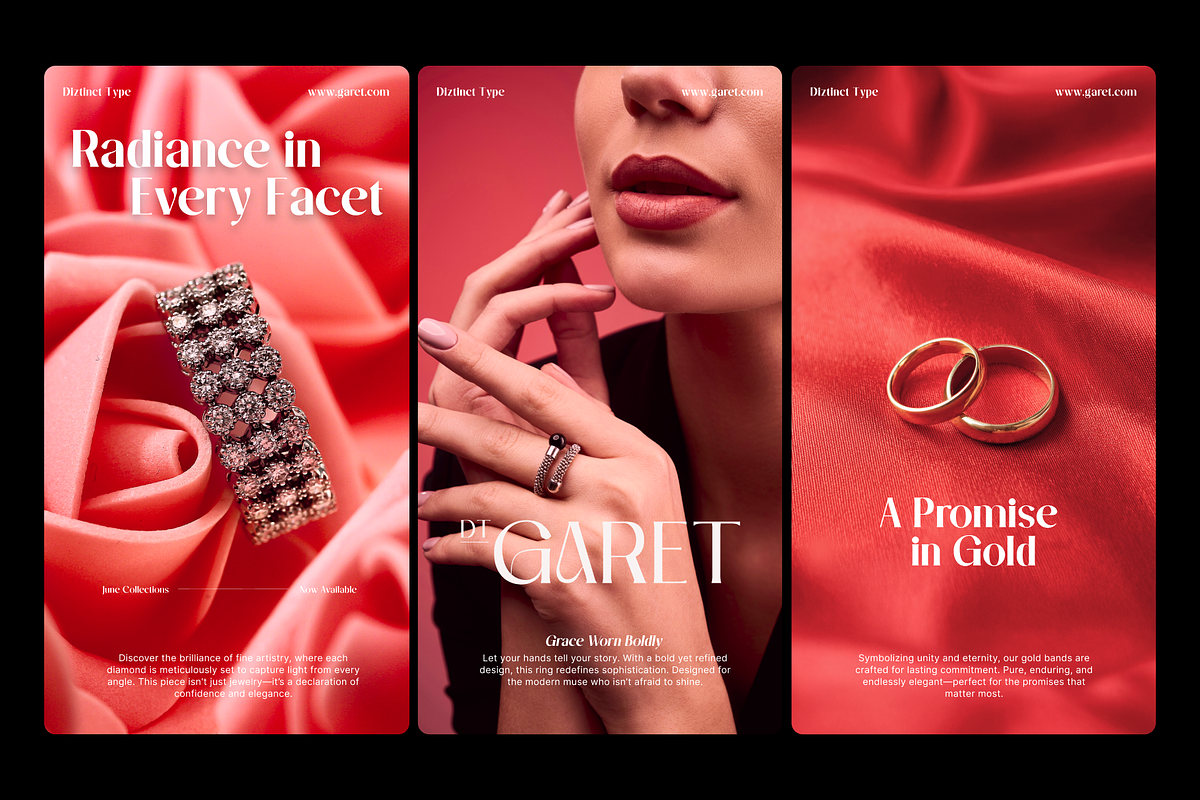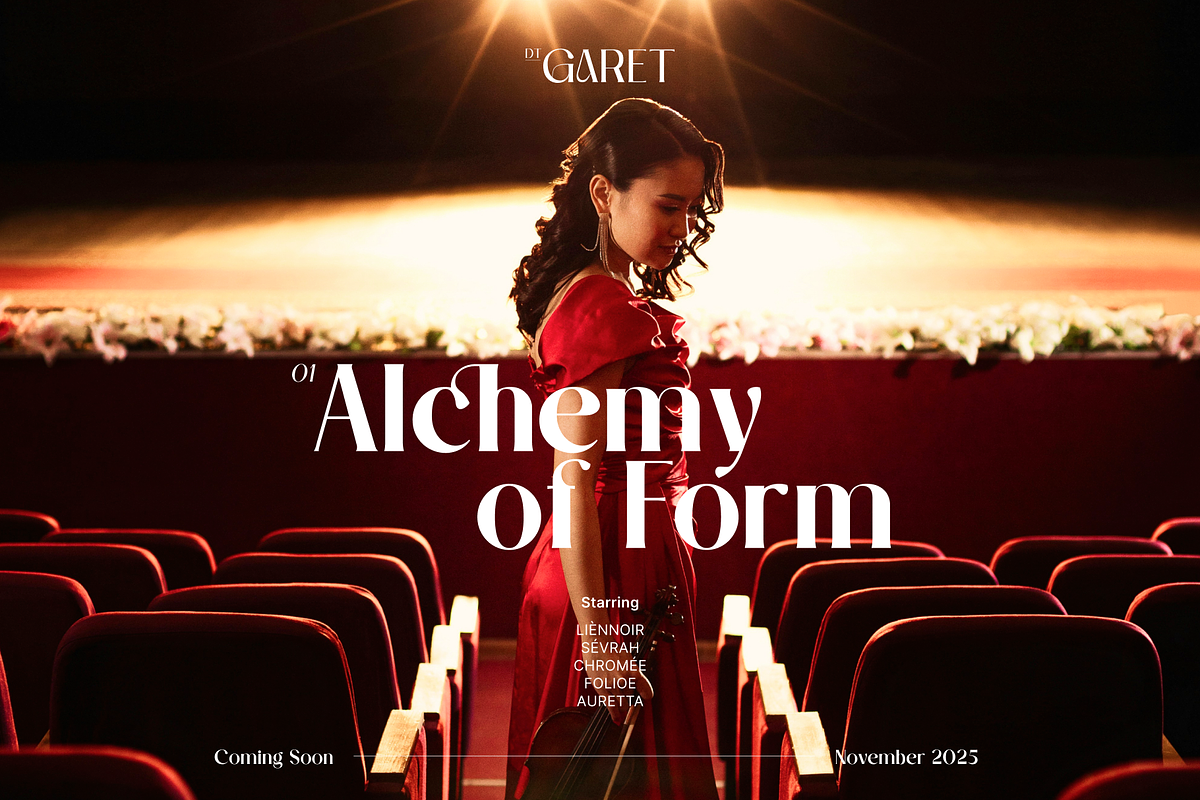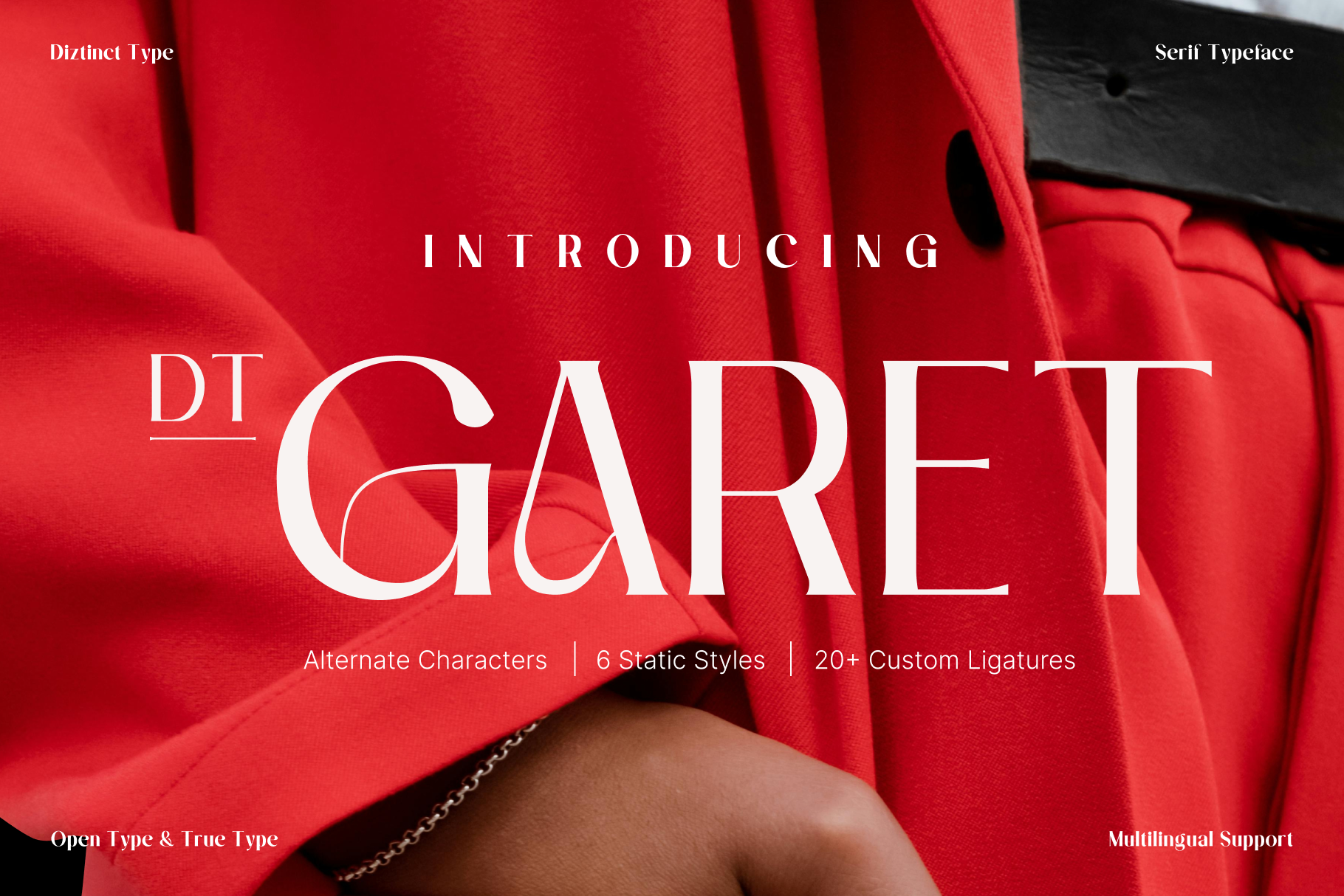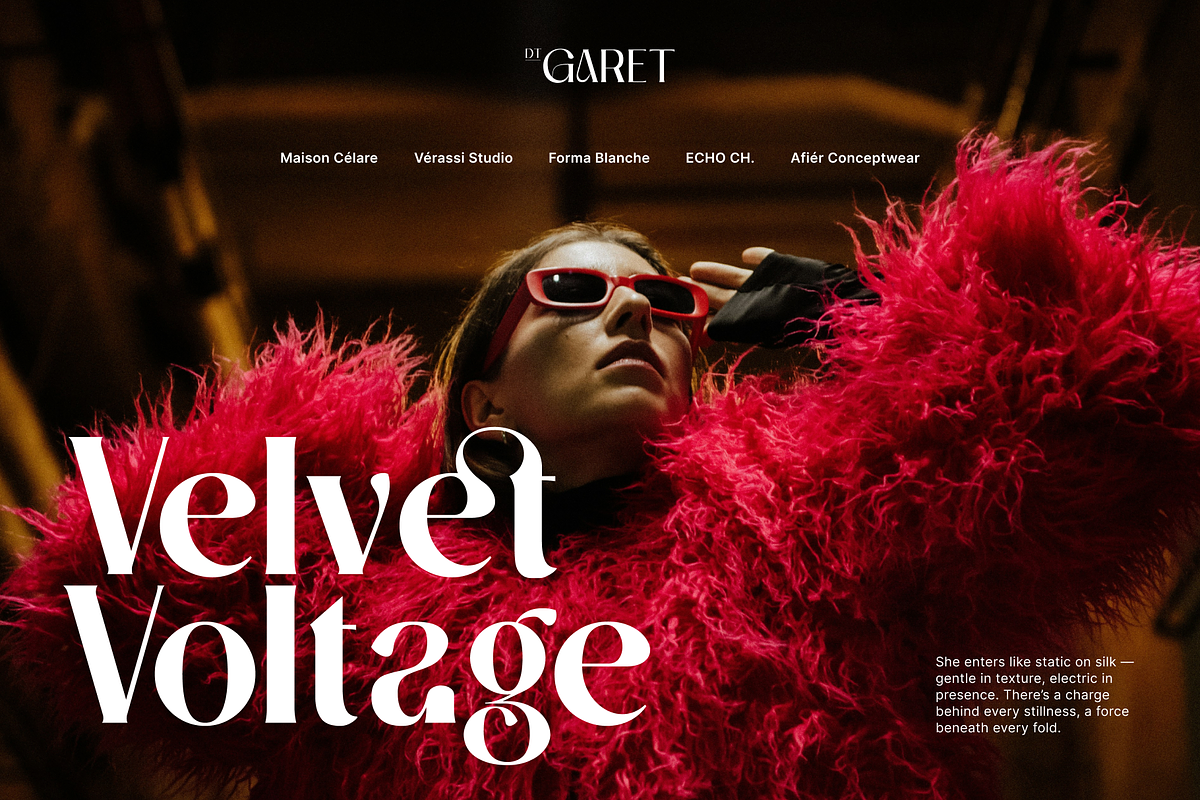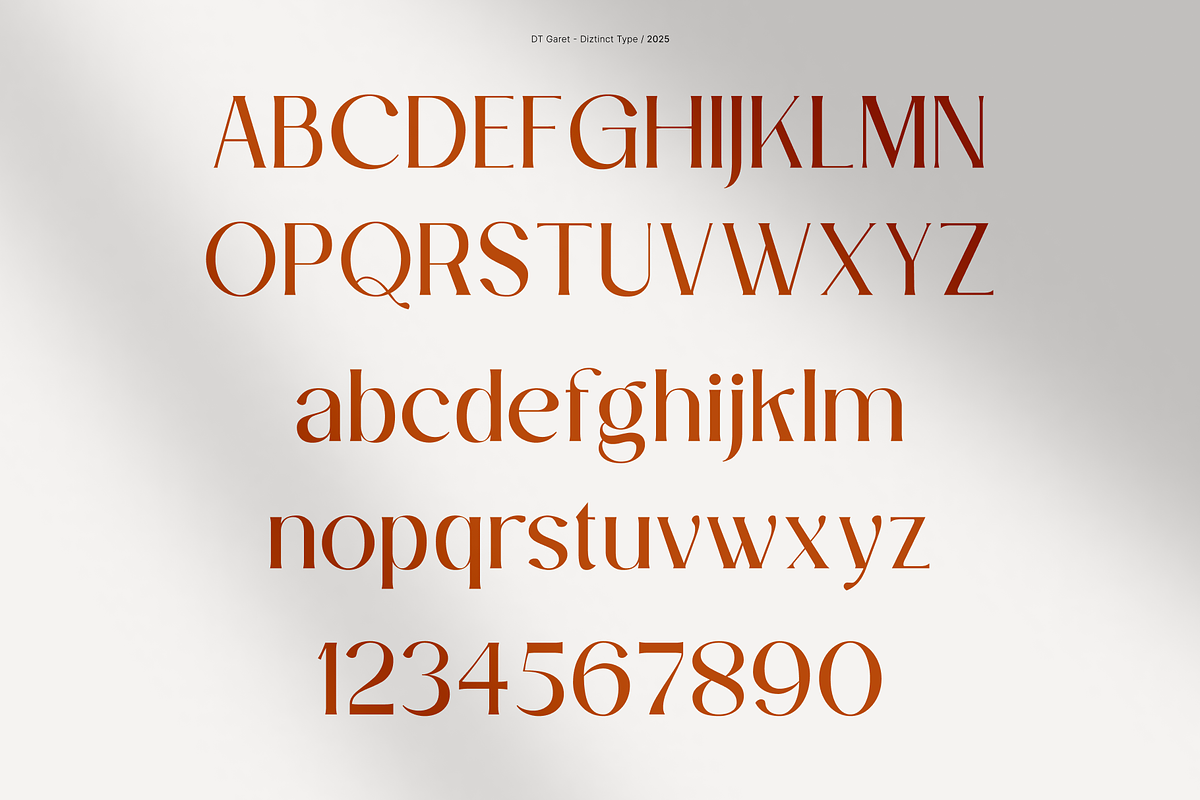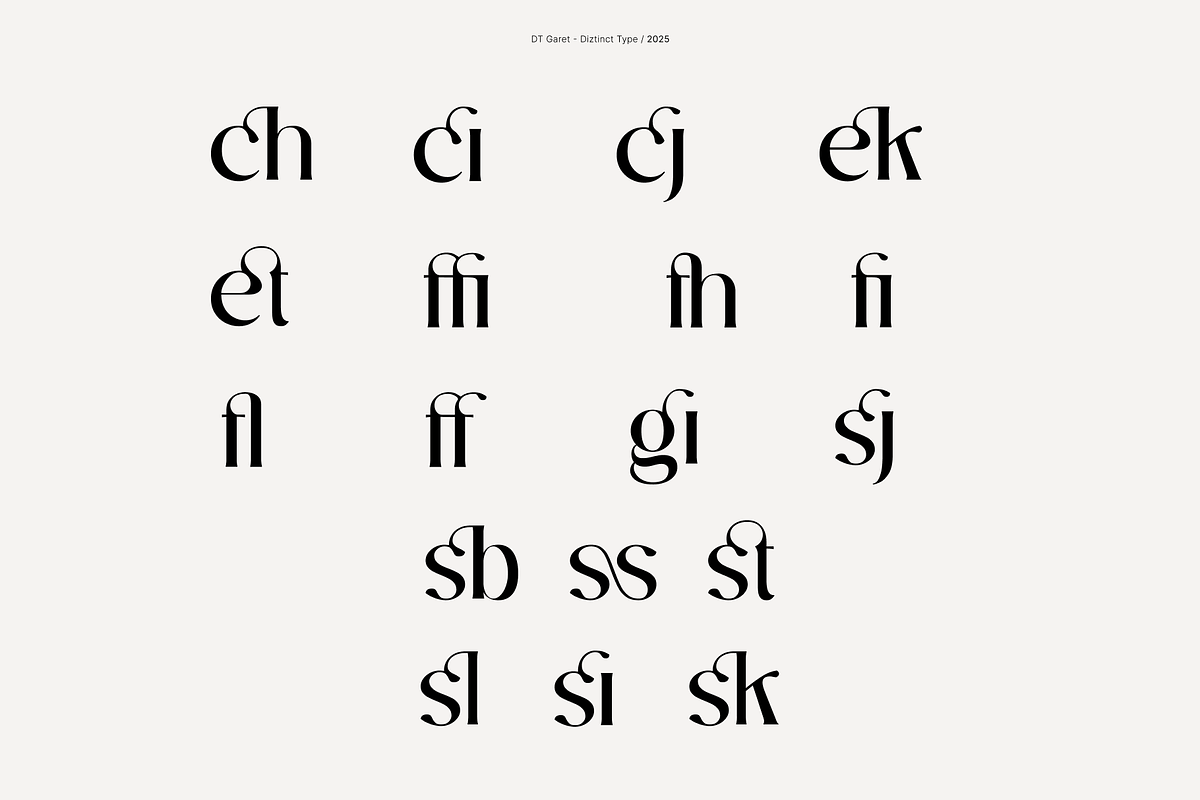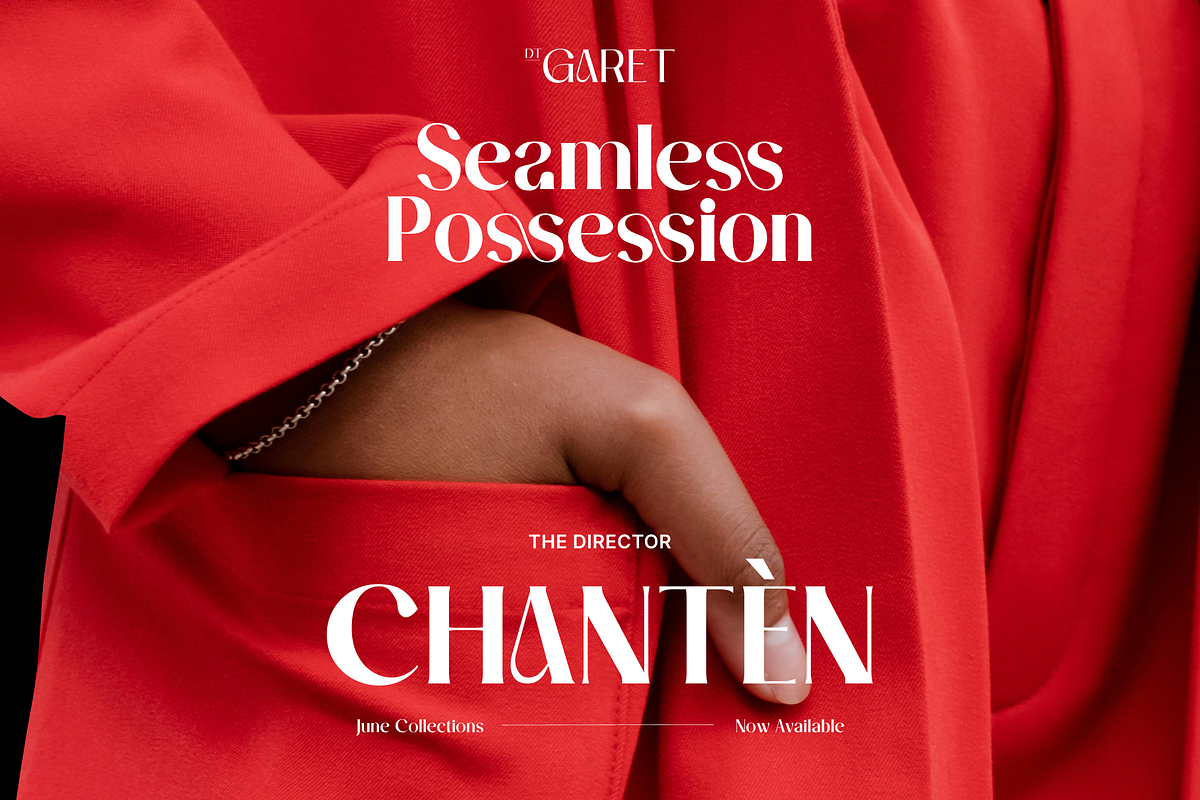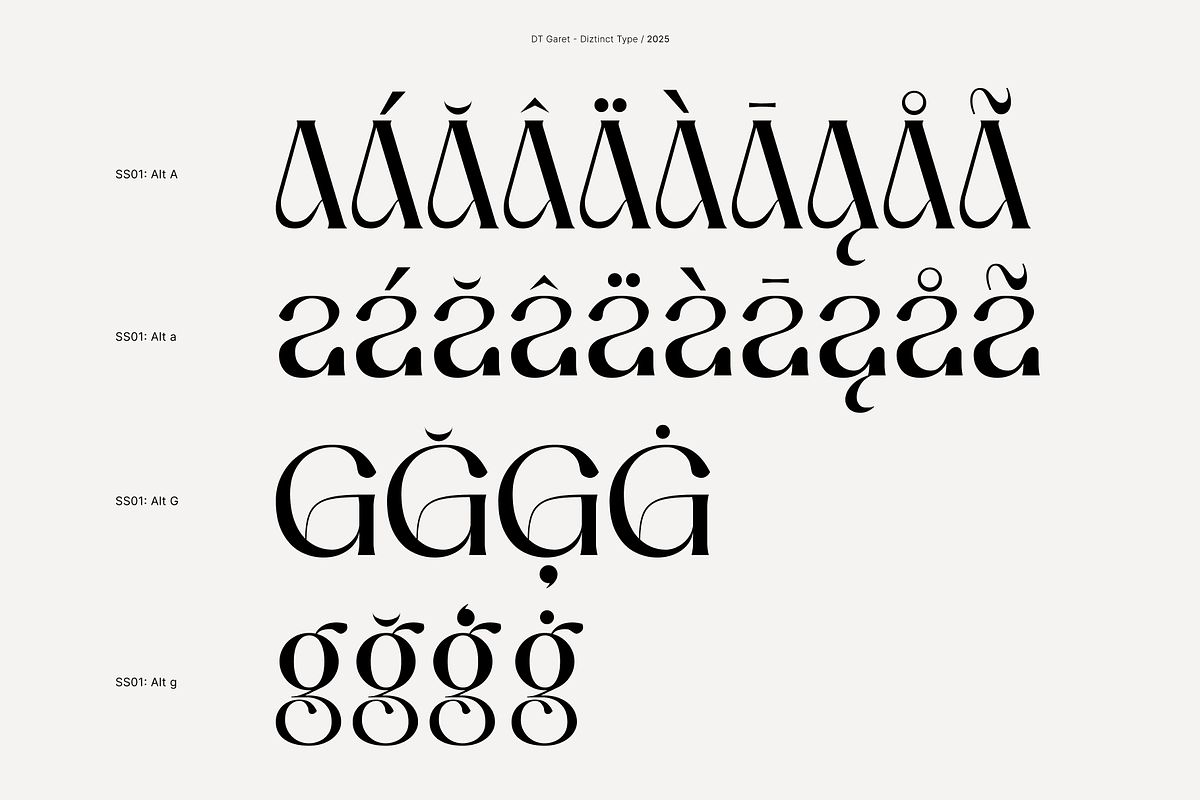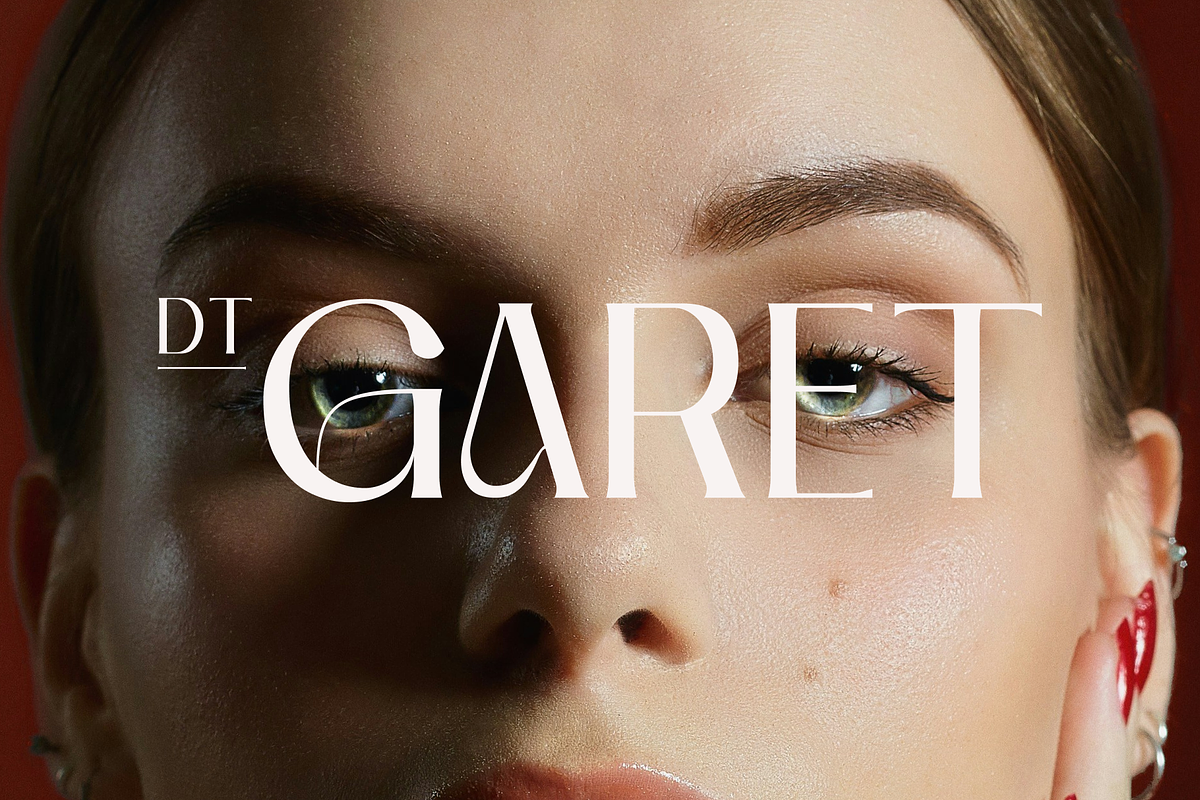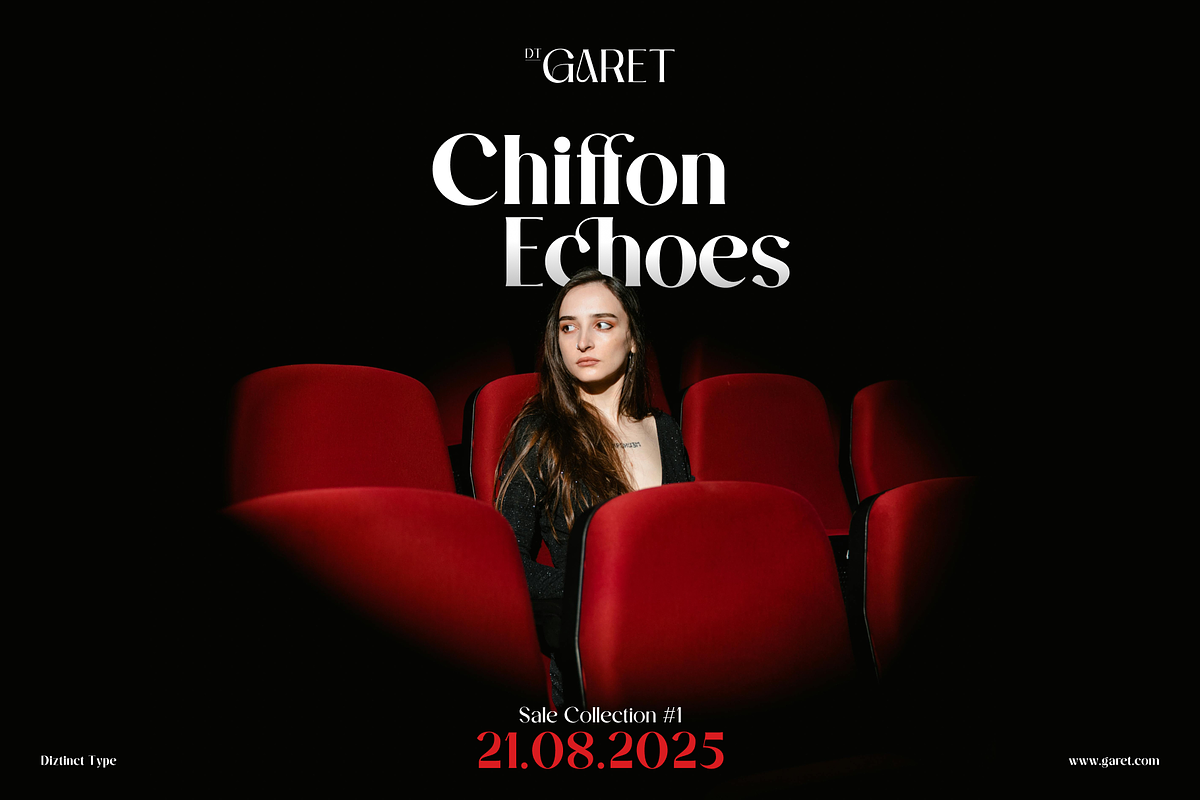
DT Garet – Luxury Serif Typeface
DT Garet is an elegant high-contrast serif typeface designed by Diztinct Type to blend timeless sophistication with a contemporary edge. Inspired by classical letterforms and reimagined for modern design needs, DT Garet offers six refined styles—ranging from Medium to ExtraBold with matching italics—making it ideal for luxury branding, editorial layouts, and expressive headlines. Its sharp terminals, fluid curves, and graceful proportions create a distinctive typographic voice, while 20+ custom ligatures and a curated set of stylistic alternates provide creative flexibility and refined detail. More than just a typeface, DT Garet is a statement of clarity, elegance, and intentional design.
20+ Custom Ligatures for enhanced Stylistic Alternates for creative variation Multilingual Support (Western, Central & Eastern European languages) Web Fonts included for seamless online use
Ideal for: Luxury brand identities Editorial layouts with a refined touch High-end product packaging Fashion and beauty campaigns Elegant website typography With DT Garet, elevate your design with timeless elegance and modern sophistication in every letterform.